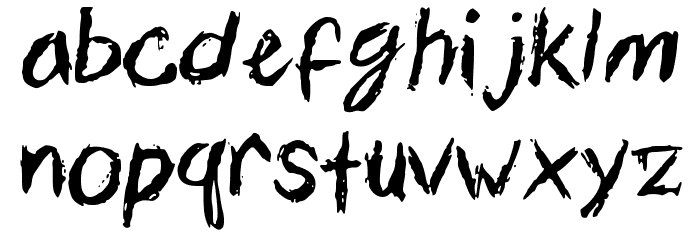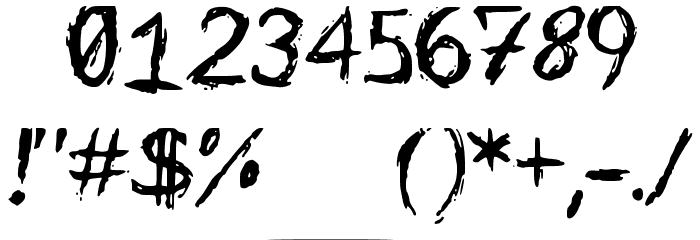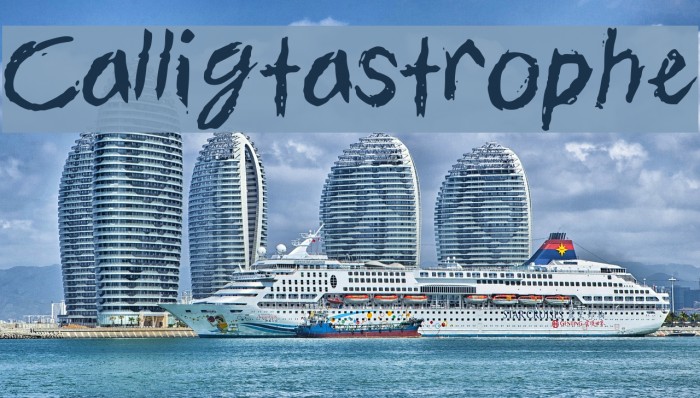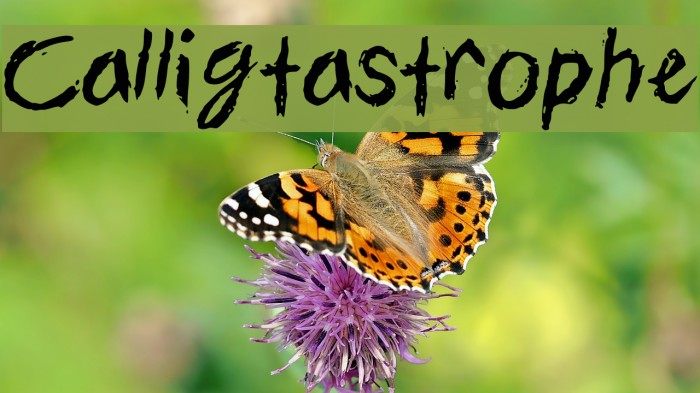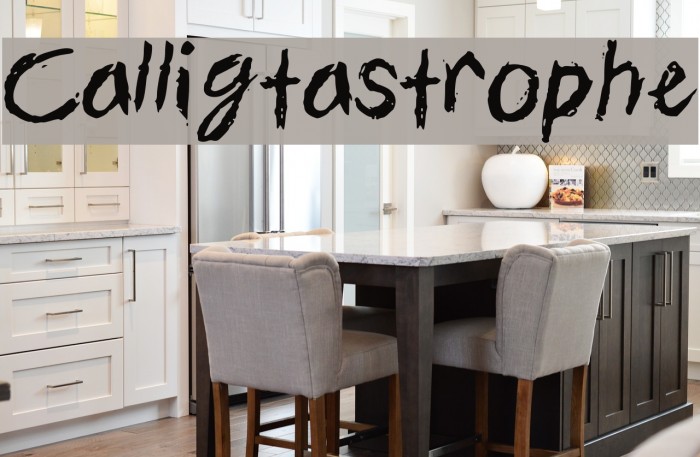
Calligtastrophe Font
This font exudes a bold and expressive style, reminiscent of hand-drawn calligraphy with a modern twist. The strokes are uneven and dynamic, giving each character a unique and artistic flair. The uppercase letters are robust and commanding, while the lowercase letters maintain a fluid and organic feel. Numbers and special characters follow the same energetic style, making the font versatile for creative projects. The overall appearance is both edgy and artistic, perfect for making a statement.
A bold, expressive font with a hand-drawn, artistic style.
- Proposed Projects: Ideal for album covers, posters, artistic branding, and creative social media graphics.
- Overall Style: Modern, Artistic
- Use Case: Headlines, Logos, Artistic projects